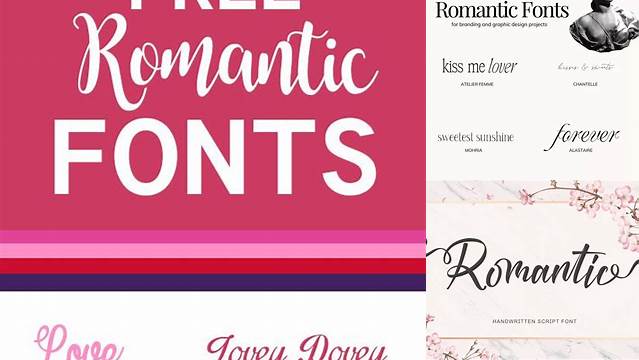
Romantic Fonts: Free Downloads For Your Designs
Finding the perfect font can be a game-changer when crafting heartfelt messages, designing wedding invitations, or creating romantic visuals. The right font evokes emotion, adds a personal touch, and transforms ordinary text into something extraordinary. If you're on the hunt for the most romantic font free download, you've come to the right place! This guide dives into the world of romantic fonts, exploring various styles and providing tips on where to find them for free. Let’s get started!
Romantic Script Fonts: The Epitome of Elegance
When it comes to most romantic font free download, script fonts often take center stage. Their flowing lines and elegant curves mimic the beauty of handwriting, making them perfect for conveying love and affection. Imagine using a delicate script font for wedding invitations, adding a touch of timeless romance and sophistication. The charm of script fonts lies in their ability to evoke a sense of tradition and intimacy, ideal for projects that require a personal touch. The best part is that there are tons of free script fonts available that don’t compromise on quality or style.
Think about how a beautifully written letter can make someone feel truly special. Script fonts aim to capture that same emotion, creating a visual representation of heartfelt words. Whether it's a simple thank you note or a grand declaration of love, choosing the right script font can elevate your message and leave a lasting impression. For designers, these fonts are invaluable tools for adding a touch of class and elegance to any project.
Cursive Fonts: Adding a Personal Touch
Cursive fonts are another great option for romantic designs. They offer a more casual yet still elegant alternative to traditional script fonts. When looking for the most romantic font free download, consider cursive fonts for projects that require a blend of sophistication and approachability. Cursive fonts mimic handwriting, creating a personal and intimate feel that resonates with readers. Their flowing strokes and connecting letters evoke a sense of warmth and authenticity, making them perfect for expressing heartfelt emotions.
Imagine using a cursive font for a handwritten-style note or a personalized greeting card. The gentle curves and natural flow of the letters add a human touch that digital fonts often lack. This personal feel can make your message more impactful and memorable, especially in a world dominated by sterile, digital communication. Cursive fonts are also excellent for branding, adding a touch of personality to logos, websites, and marketing materials.
Many designers and creatives turn to cursive fonts to add a unique flair to their projects. The key is to choose a font that is both beautiful and legible. While some cursive fonts can be overly ornate, others strike the perfect balance between style and readability. Explore various cursive font options to find the one that best suits your project's needs and conveys the right message.
Serif Fonts: Timeless Romance and Elegance
Serif fonts, with their classic and traditional appearance, can also be incredibly romantic. When you are looking for the most romantic font free download, don’t overlook the power of a well-chosen serif font. These fonts feature small decorative strokes at the end of each letter, adding a touch of sophistication and formality. Serif fonts are perfect for projects that require a sense of timeless elegance, such as wedding invitations, formal announcements, or classic branding materials.
The structured and refined nature of serif fonts can evoke a sense of tradition and heritage, making them ideal for conveying messages of enduring love and commitment. Think about how classic literature and historical documents often use serif fonts to create a sense of authority and sophistication. By incorporating serif fonts into your romantic designs, you can add a touch of gravitas and timelessness.
For example, a beautifully designed wedding invitation using a serif font can communicate a sense of timeless romance and sophistication. The font's classic appearance complements the significance of the occasion, creating a lasting impression on the recipients. Similarly, serif fonts can be used in branding to convey a sense of trust and reliability, making them a versatile choice for various projects.
In conclusion, finding the most romantic font free download involves exploring various font styles, from elegant scripts to modern sans-serifs. Each font type offers a unique way to convey emotions and add a personal touch to your projects. By understanding the nuances of each style and knowing where to find high-quality free fonts, you can create designs that are both beautiful and meaningful. Happy designing, guys!